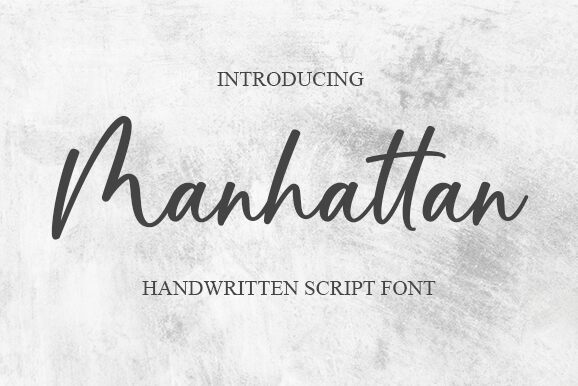
Manhattan
Manhattan, the stunning semi-light handwritten font by Graphix Line Studio, will elevate any project with its elegance and sophistication. Perfect for wedding invitations, feminine branding, and fashion editorials, Manhattan exudes a delicate charm that captures the essence of handwritten notes. The subtle curves and strokes of this font give it an air of effortless beauty that will leave a lasting impression on any reader. Its versatility allows it to be used seamlessly in both digital and print mediums. Whether you're designing an editorial spread or creating social media graphics, Manhattan is the ideal choice for those seeking a touch of refined femininity in their typography.